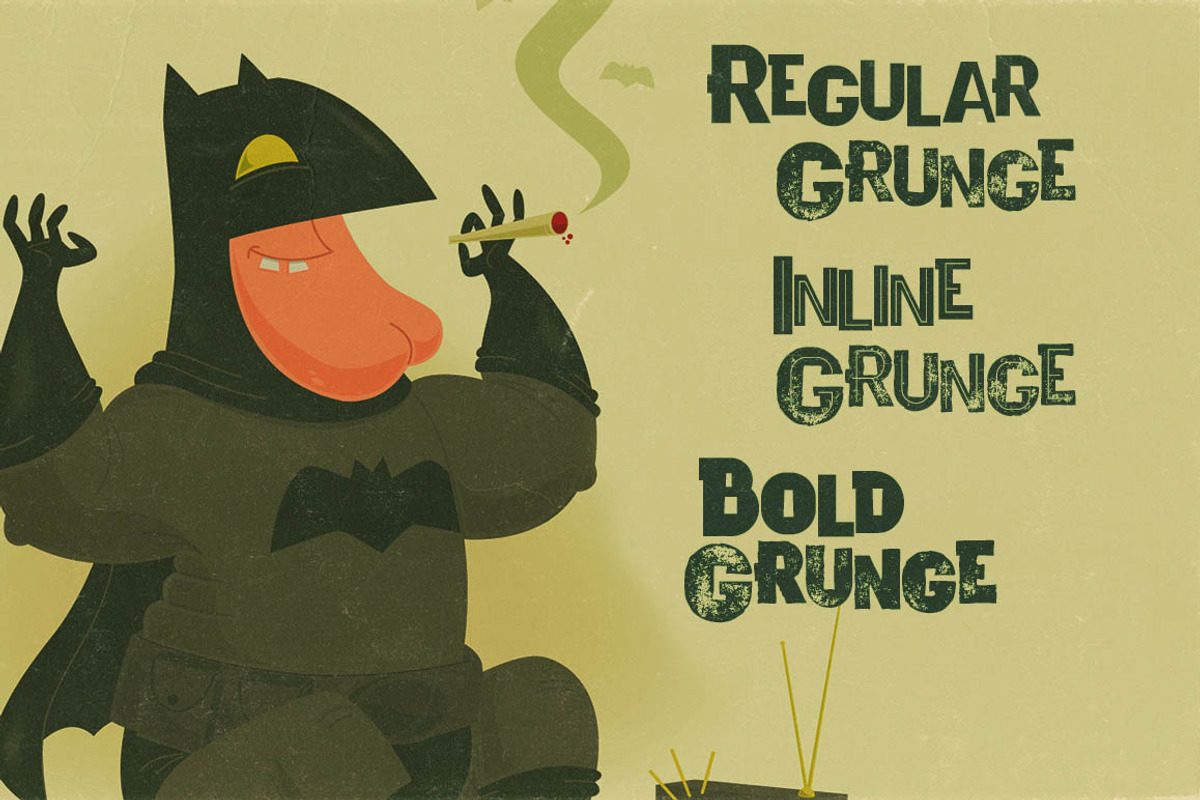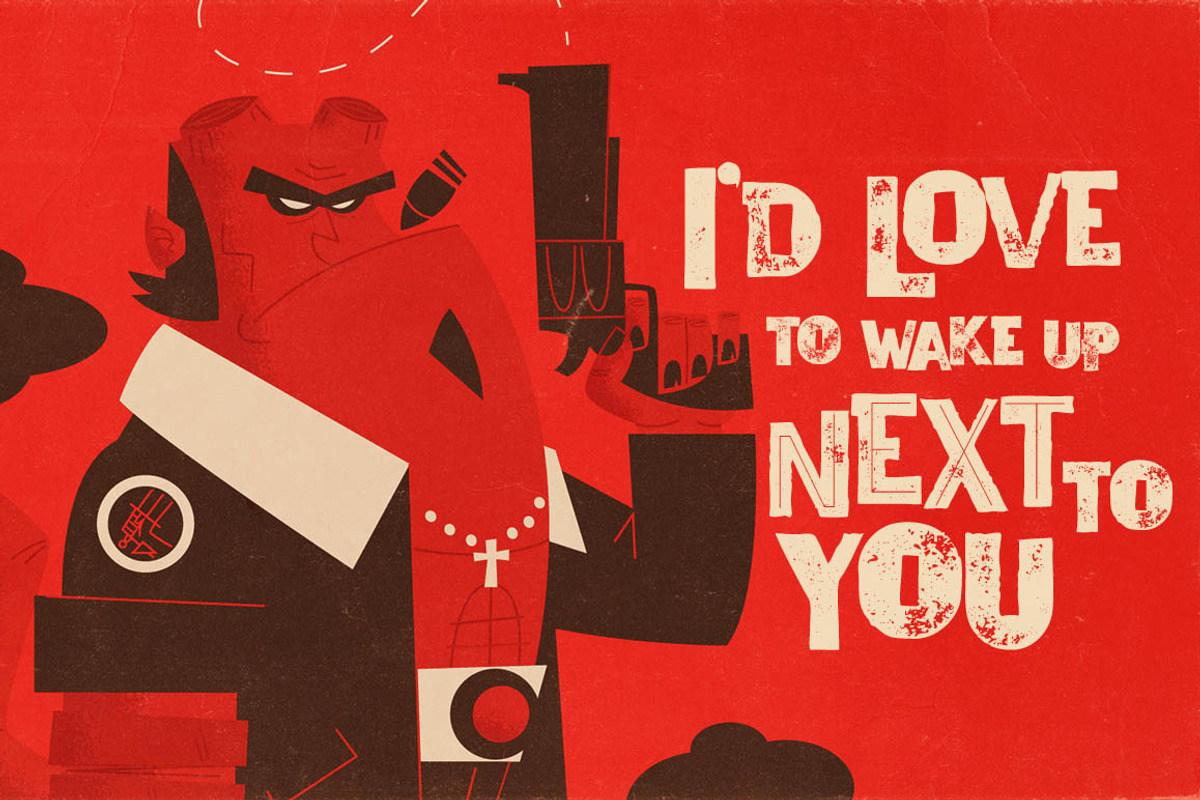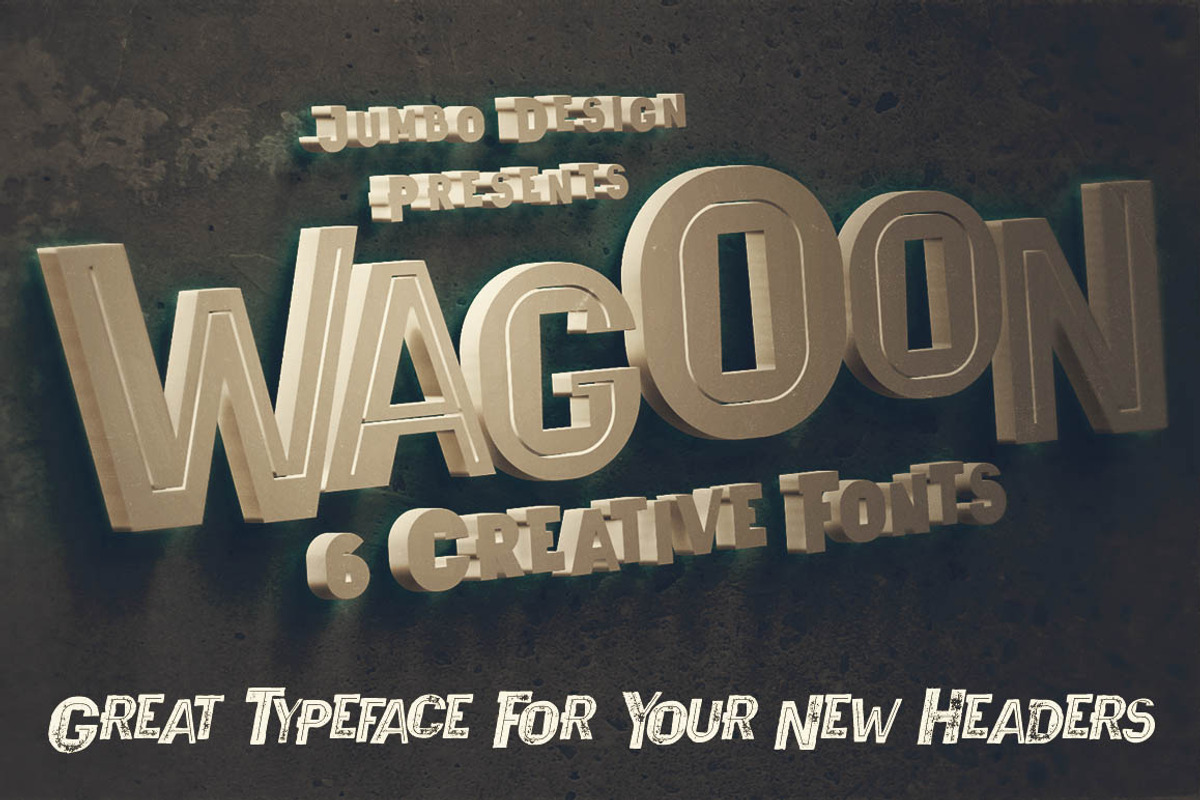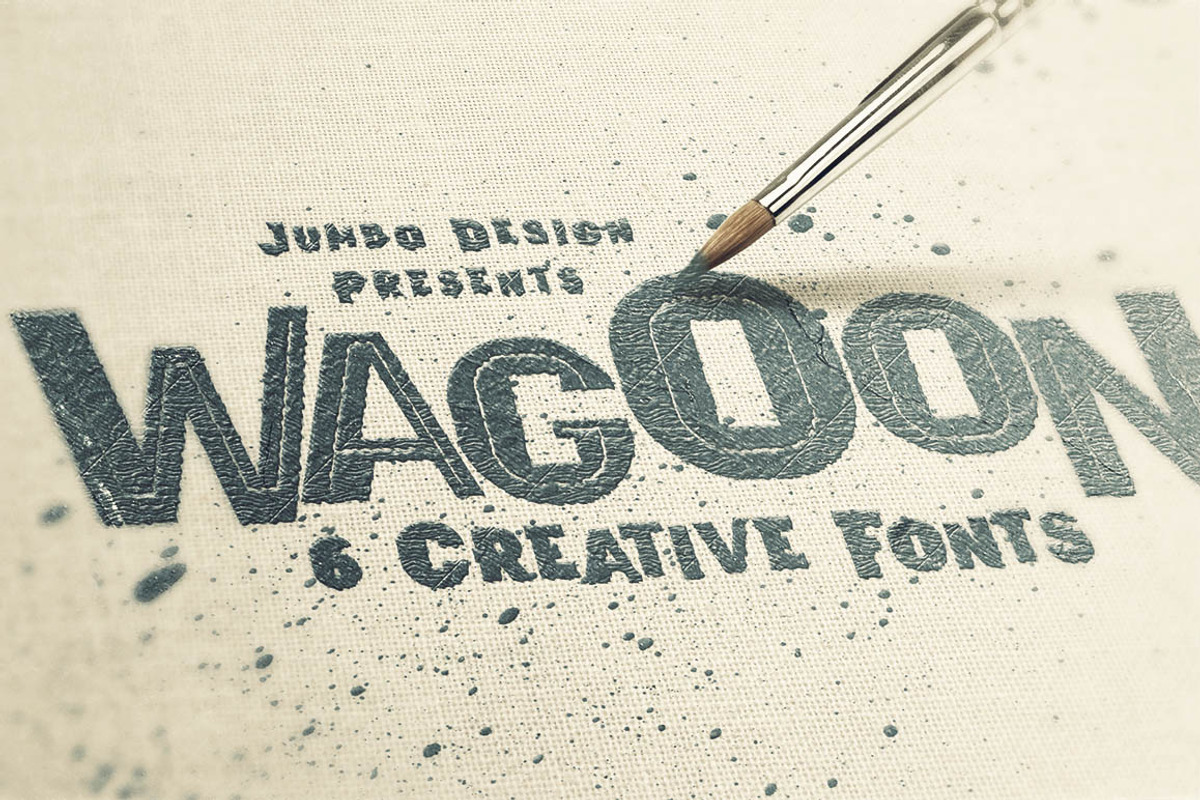
Wagoon - Funny Style Font
Wagoon - Funny Style Font by JumboDesign is a font selected for branding, posters, packaging, typography.
Why Wagoon - Funny Style Font is worth a look
Wagoon - Funny Style Font by JumboDesign fits naturally into Branding, posters, packaging, typography.